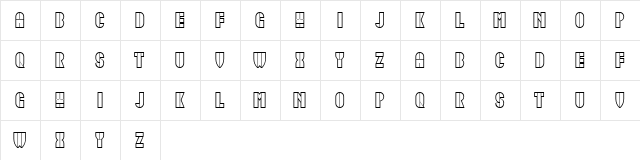
Idiotism Book Hollow Regular
Design Context for Idiotism Book Hollow Typeface
Idiotism Book Hollow takes a measured approach to typography — its balanced proportions and neutral character make it a reliable workhorse for both digital and print work.